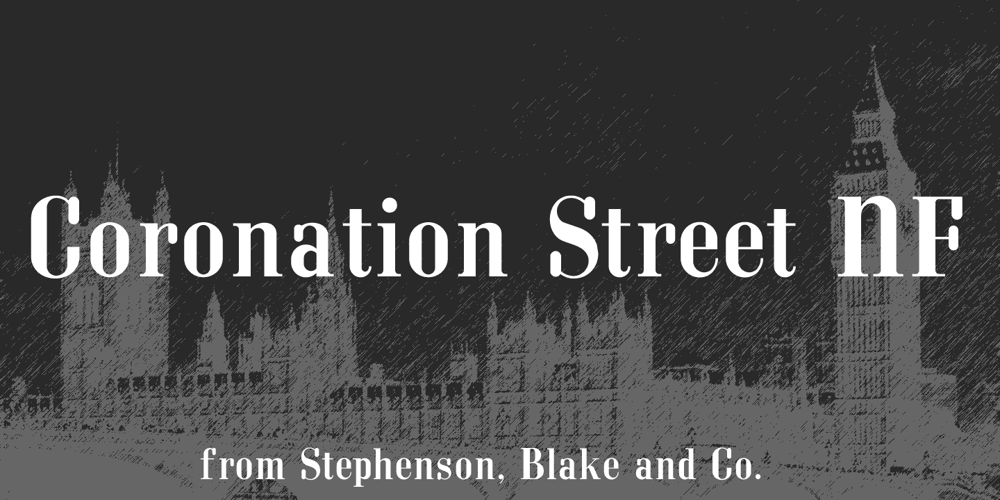
Coronation Street NF Font Family was designed by Nick Curtis and published by Nick’s Fonts. Coronation Street NF contains 1 styles and family package options. Here’s an unusual take on a “modern” typeface, based on a 1936 release from England’s Stephenson, Blake foundry, which serves well for interesting headlines. Both versions of this font support the Latin 1252, Central European 1250, Turkish 1254 and Baltic 1257 codepages.